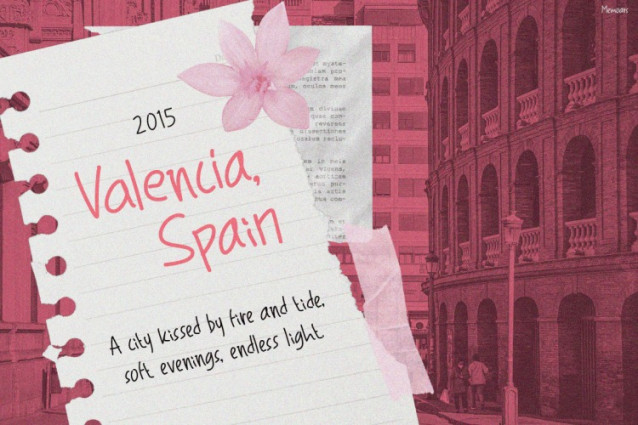
Memoars Font is a charming handwritten typeface designed to capture emotions, memories, and personal stories in a natural and expressive way. From the first look, this font feels warm, authentic, and deeply human. Its uniqueness lies in its imperfect strokes, organic curves, and casual handwritten rhythm that feels honest rather than polished. Moreover, the font brings a scrapbook-style aesthetic that instantly creates an emotional connection with the viewer. At the same time, Memoars remains clear and readable, making it functional for both decorative and storytelling purposes. Instagram Font Memoars works beautifully with journal layouts, memory books, photo albums, quotes, postcards, and personal branding visuals.
Instagram Font Memoars is carefully crafted to transform simple text into meaningful visual stories. First, its handwritten style creates a relaxed and friendly tone that feels approachable and sincere. Consequently, every word looks like it was written by hand, adding authenticity and warmth to the design. Furthermore, the slightly uneven lines and natural spacing enhance the handmade feel, making each composition feel unique and alive. In addition, the font pairs perfectly with paper textures, torn notes, tape elements, floral accents, and soft color palettes.
Memoars adapts smoothly to Instagram posts, slideshows, greeting cards, digital planners, and personal projects. Because of its friendly nature, the font feels comforting rather than formal. As a result, it helps convey feelings such as love, nostalgia, joy, and reflection. Designers can rely on Instagram Font Memoars to bring personality and emotion into their work without losing readability.